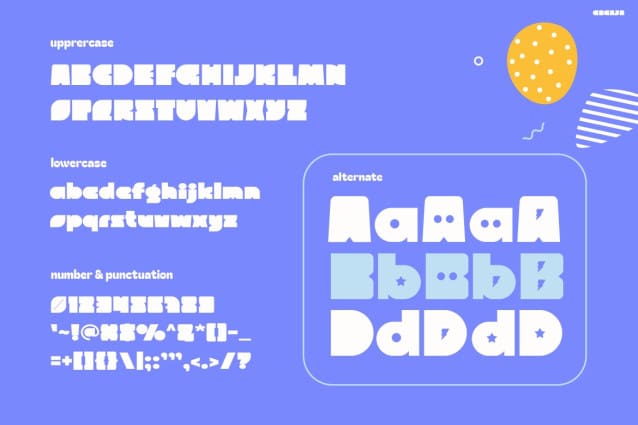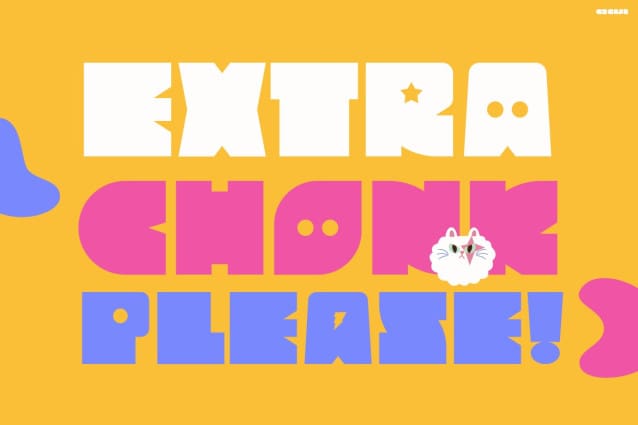
Gegaja Font
Gegaja Font is where bold shapes meet cheerful energy, creating a typeface that feels alive and full of personality. This chunky, pop-inspired font instantly turns every word into a fun design moment. Moreover, each letter bursts with joy through smooth curves and well-balanced proportions. As a result, it brings charm, movement, and attention to every layout you create.
From the first glance, you’ll notice how friendly yet stylish this font looks. Its shapes are playful but still carefully designed, giving your project both fun and sophistication. Whether you’re making posters, packaging, or social media content, GEGAJA easily adds that modern pop your visuals need.
Additionally, its rhythm feels dynamic — almost like candy for your feed! The rounded edges and bubbly structure make this typeface warm and unforgettable. It doesn’t just form letters; instead, it builds an entire mood that inspires creativity and happiness.
GEGAJA works perfectly for content creators, designers, and small businesses who want their visuals to stand out. It’s especially great for Instagram graphics, logo design, kids’ products, and trendy fashion campaigns.
Because of its bold and clean shapes, your text stays readable even at smaller sizes. Therefore, it’s ideal for branding kits, digital posts, and product packaging. Furthermore, the soft corners and geometric charm make it a must-have for cheerful, modern brands that love to stay playful yet professional.
If you want your design to feel brighter, more dynamic, and more expressive, GEGAJA will do the trick beautifully.
With Instagram Font GEGAJA, every caption, logo, or ad feels more alive. It transforms ordinary text into something expressive and memorable. Plus, its cheerful style keeps your audience engaged while adding a positive emotional tone.